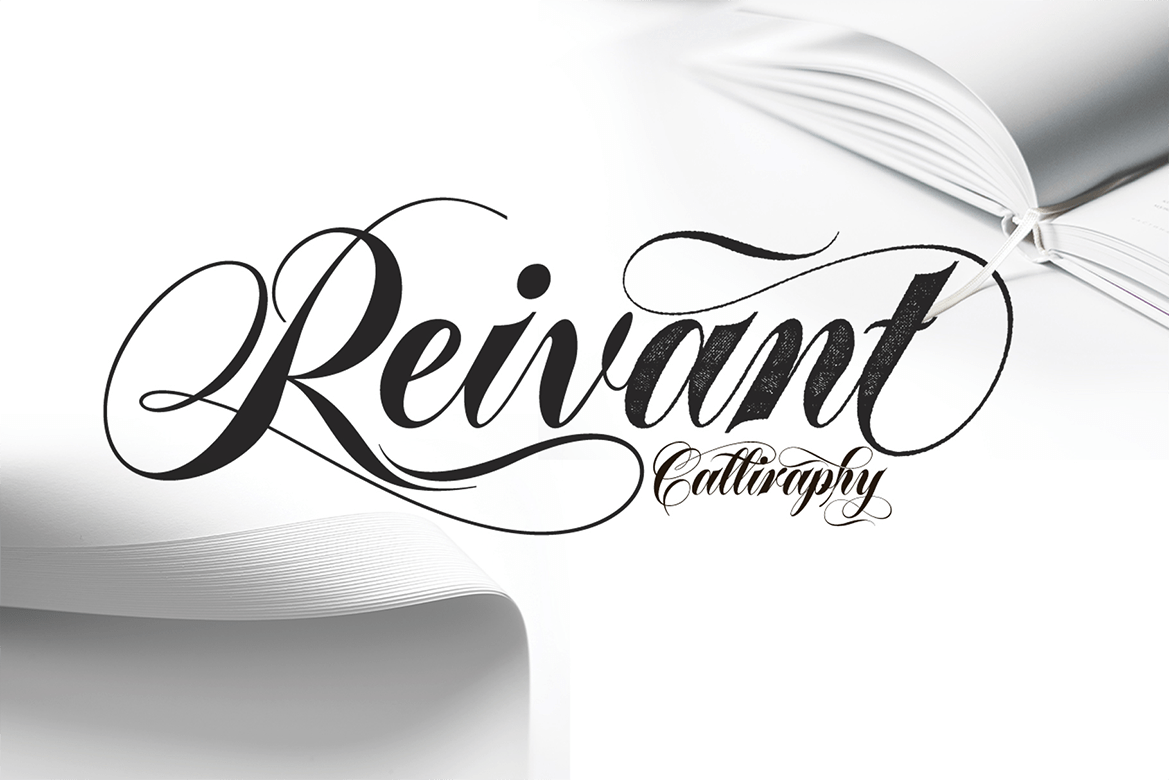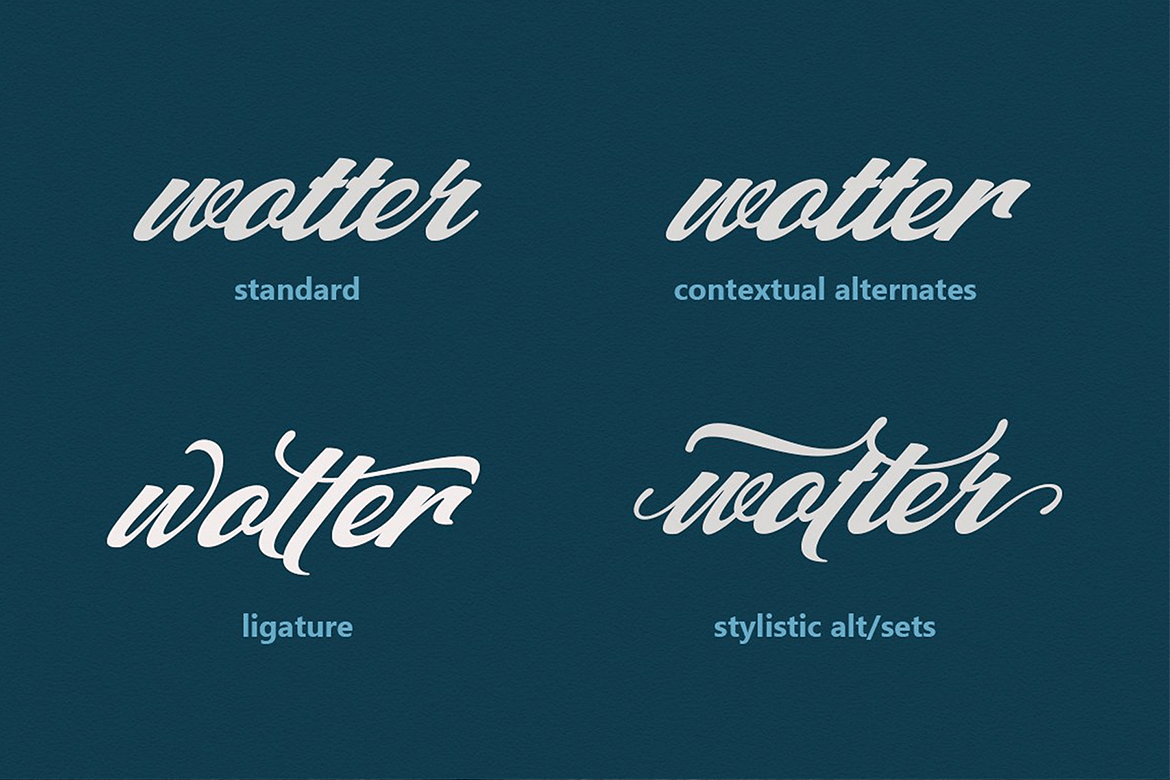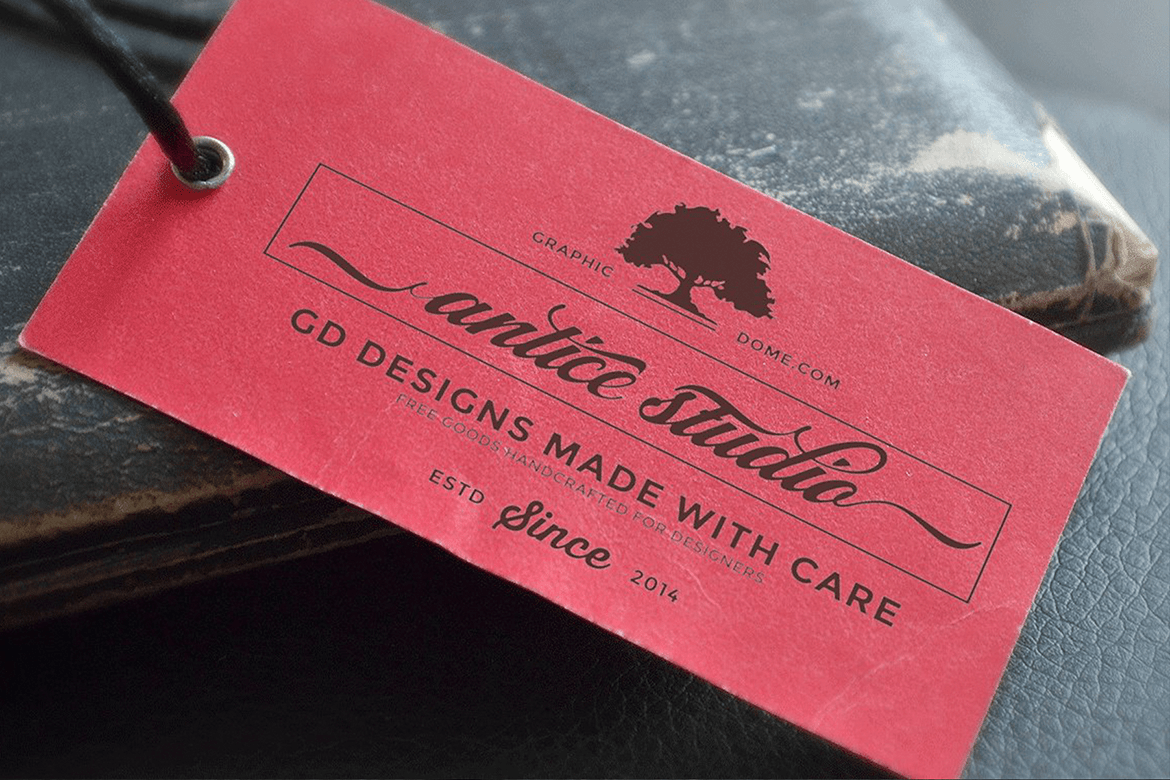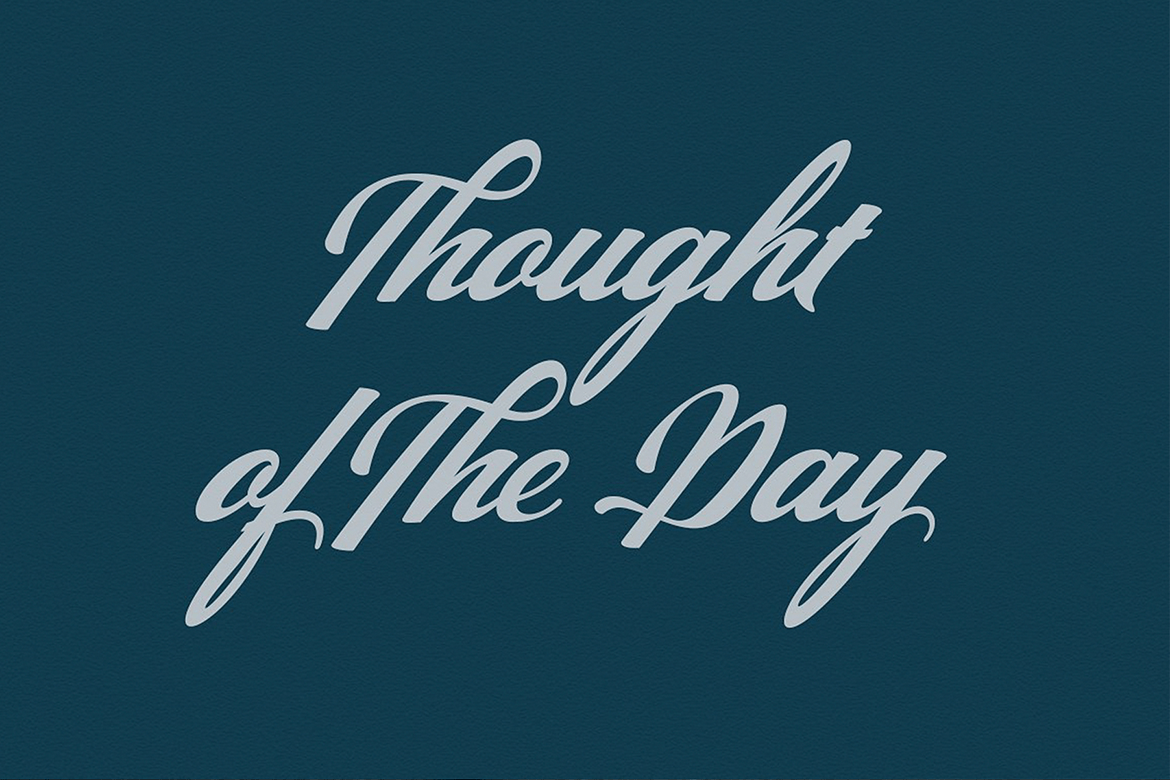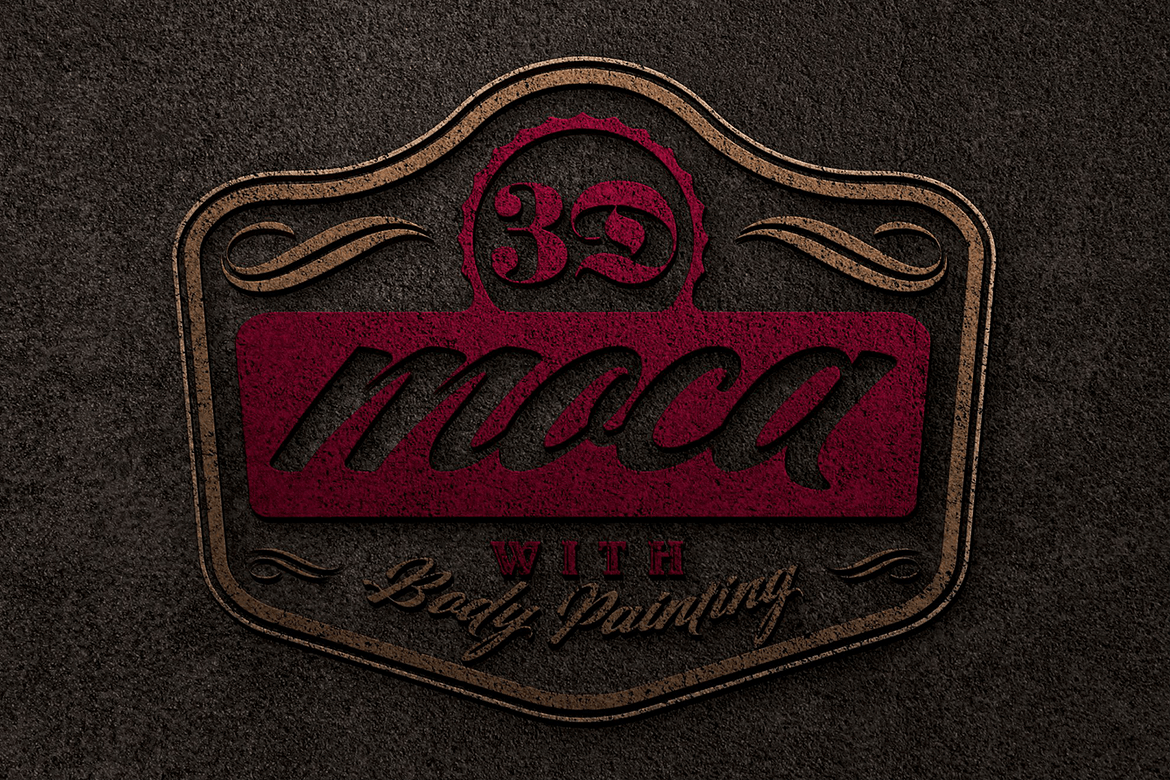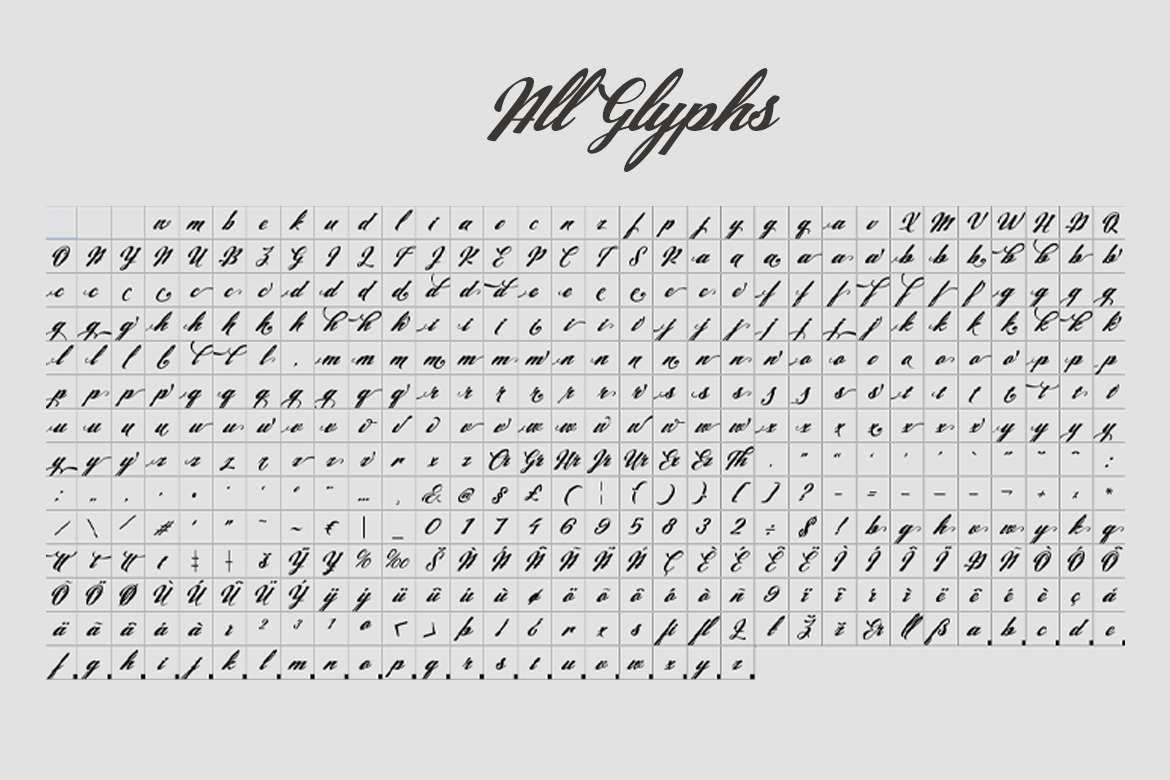
Matador
Matador is a bold, stylized calligraphic script with over 400 glyphs and 205 alternate characters, including initial and terminal letters, alternates, ligatures and multiple language support. Files included: Matador.otf
Great for headings, signatures, logos, t-shirts, letterhead, signage, labels, news, posters, badges, etc. To enable the OpenType Stylistic alternates, you need a program that supports OpenType features such as Adobe Illustrator CS, Adobe Indesign, or CorelDraw X6-X7.
The Matador font family includes 411 glyphs.